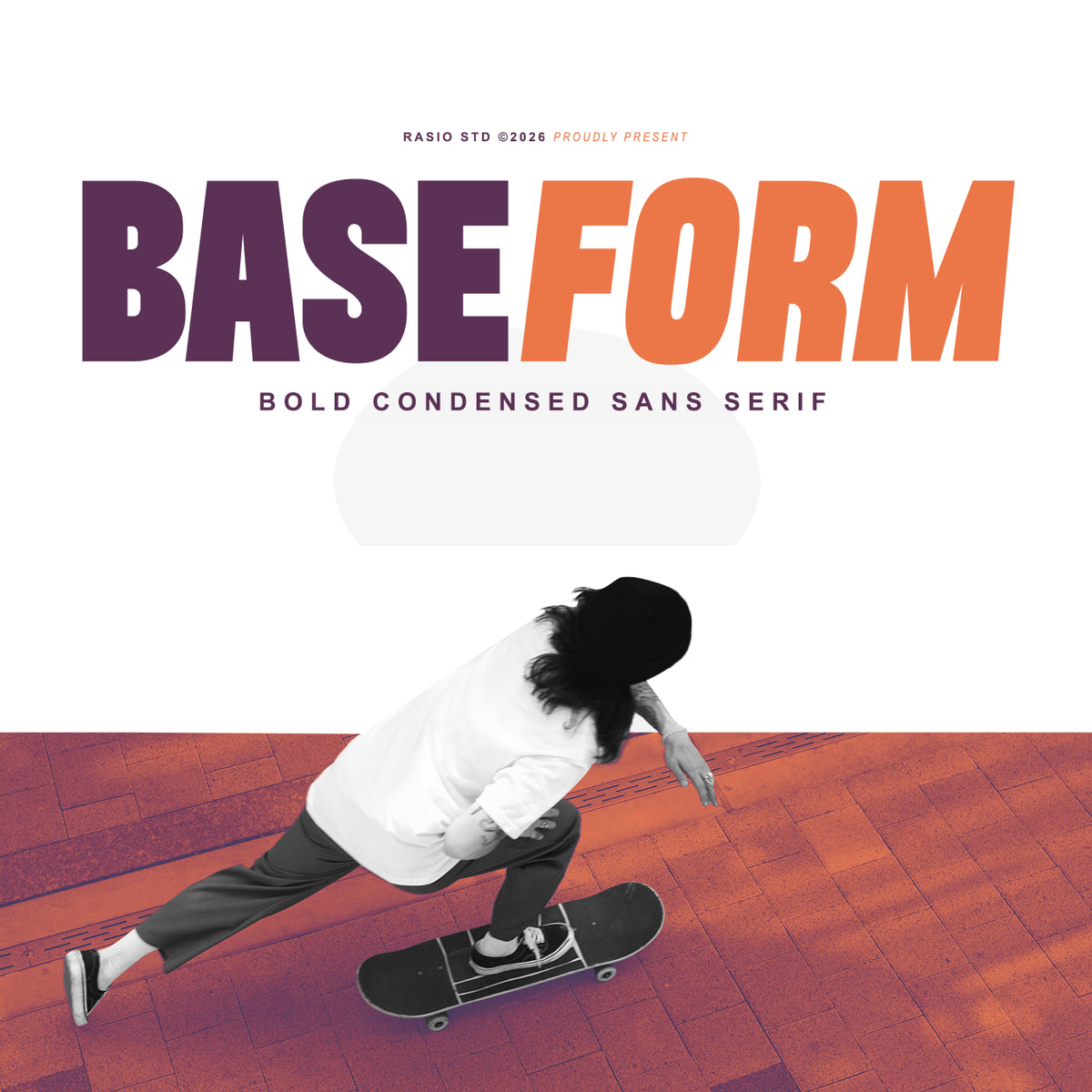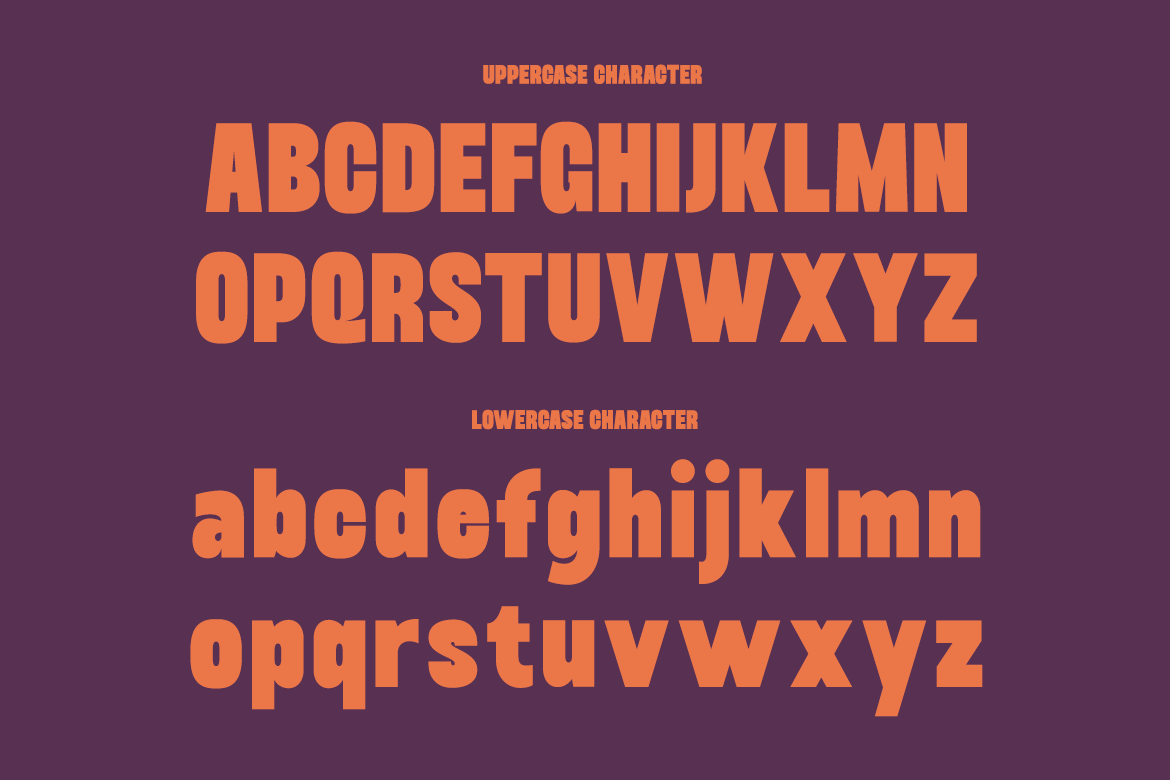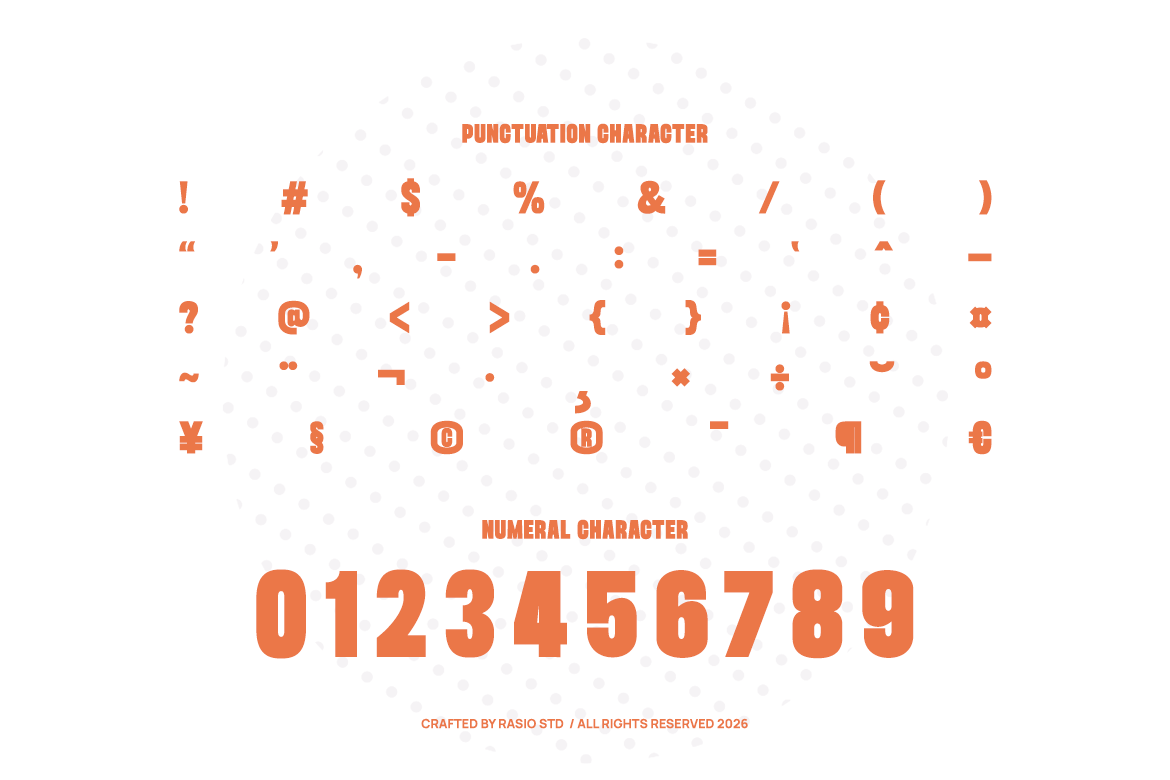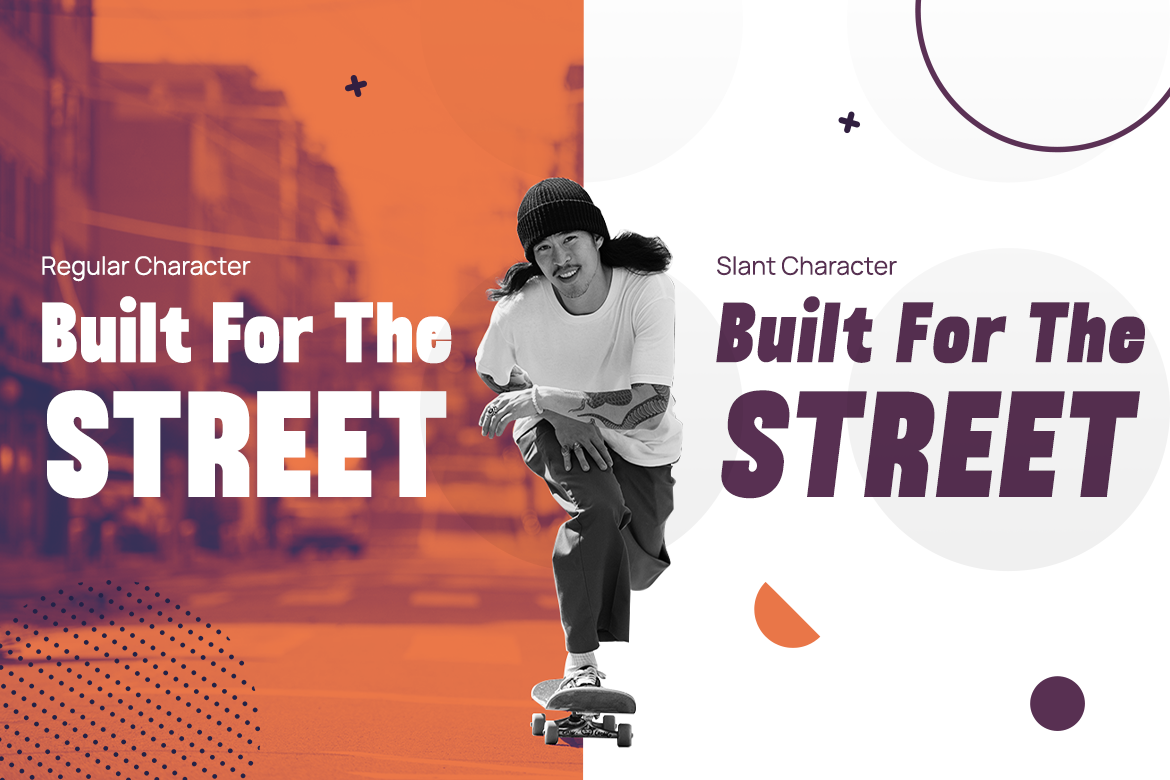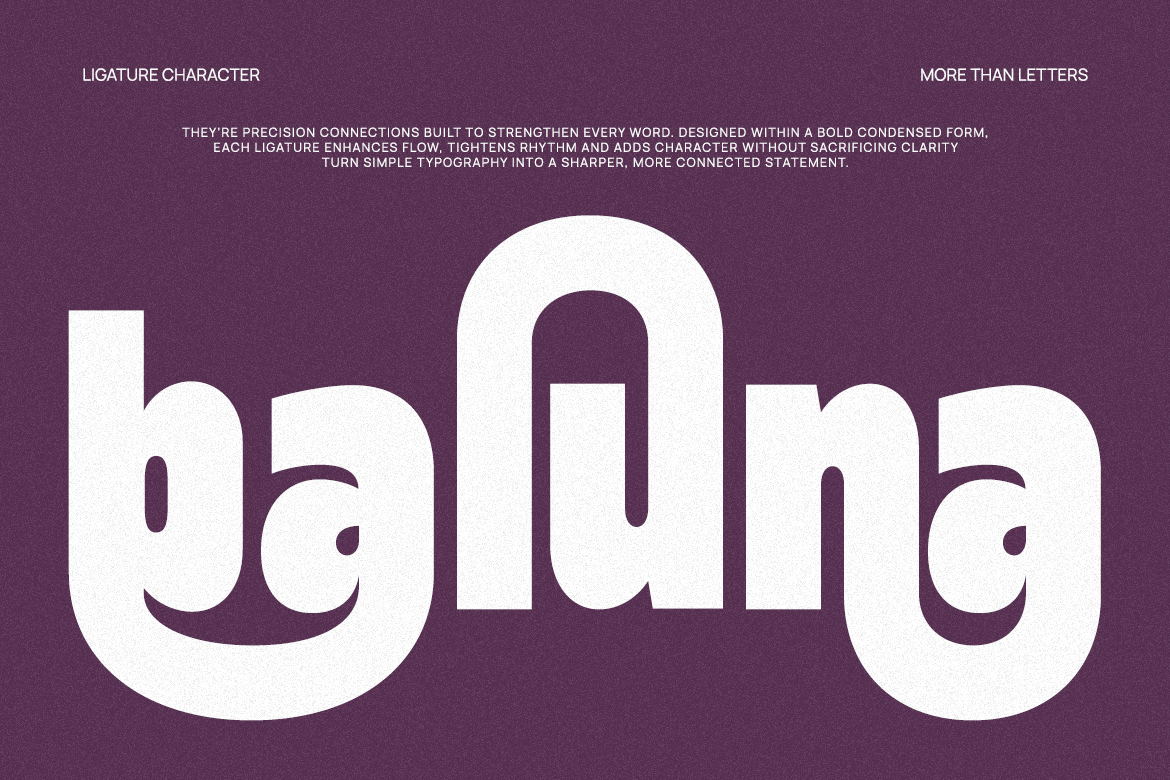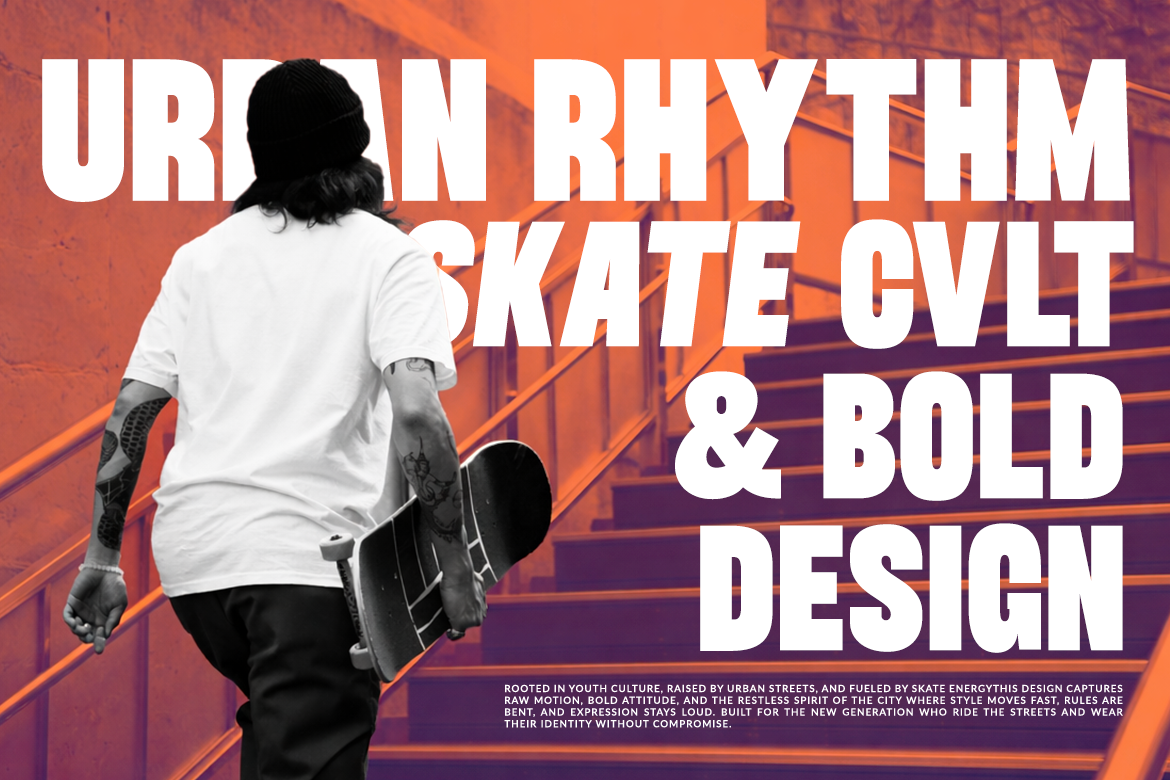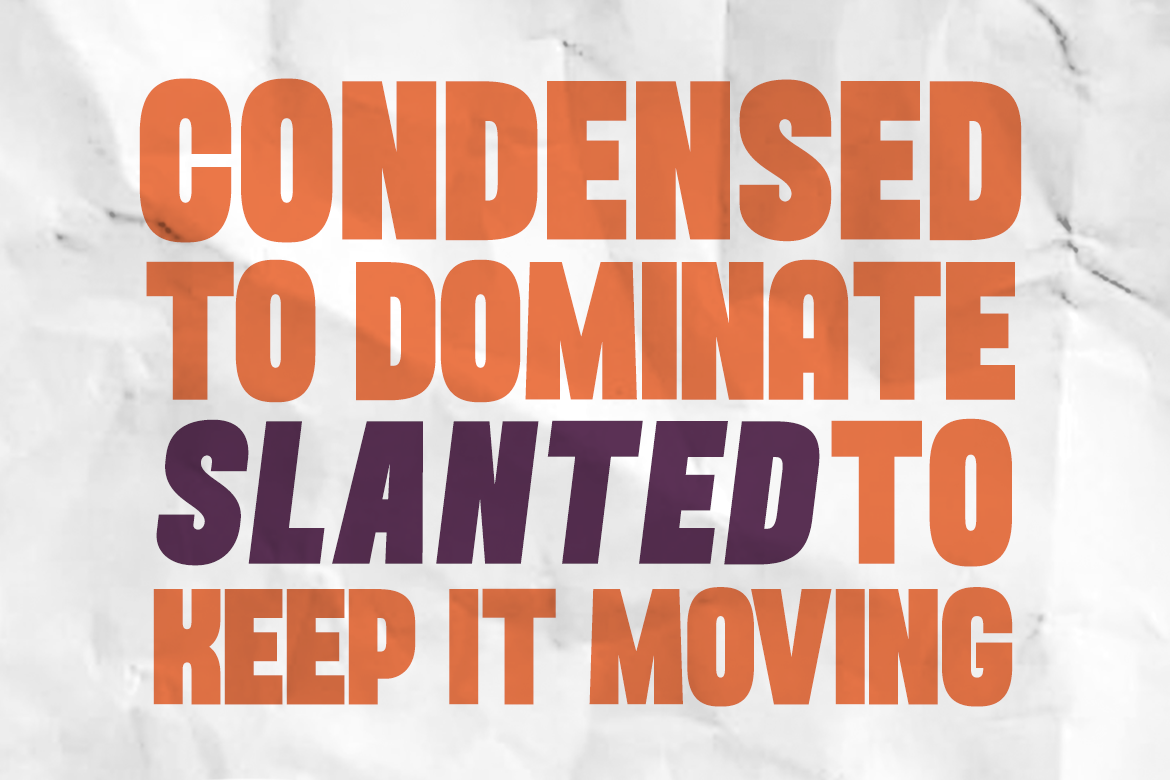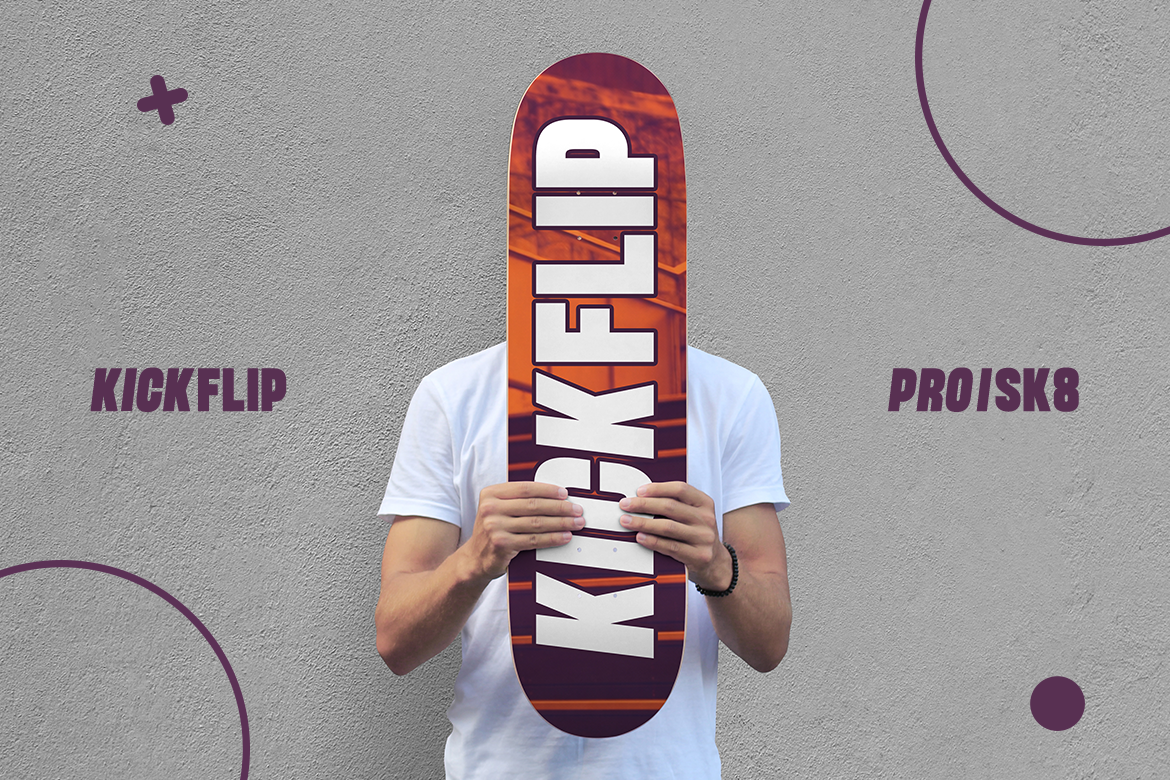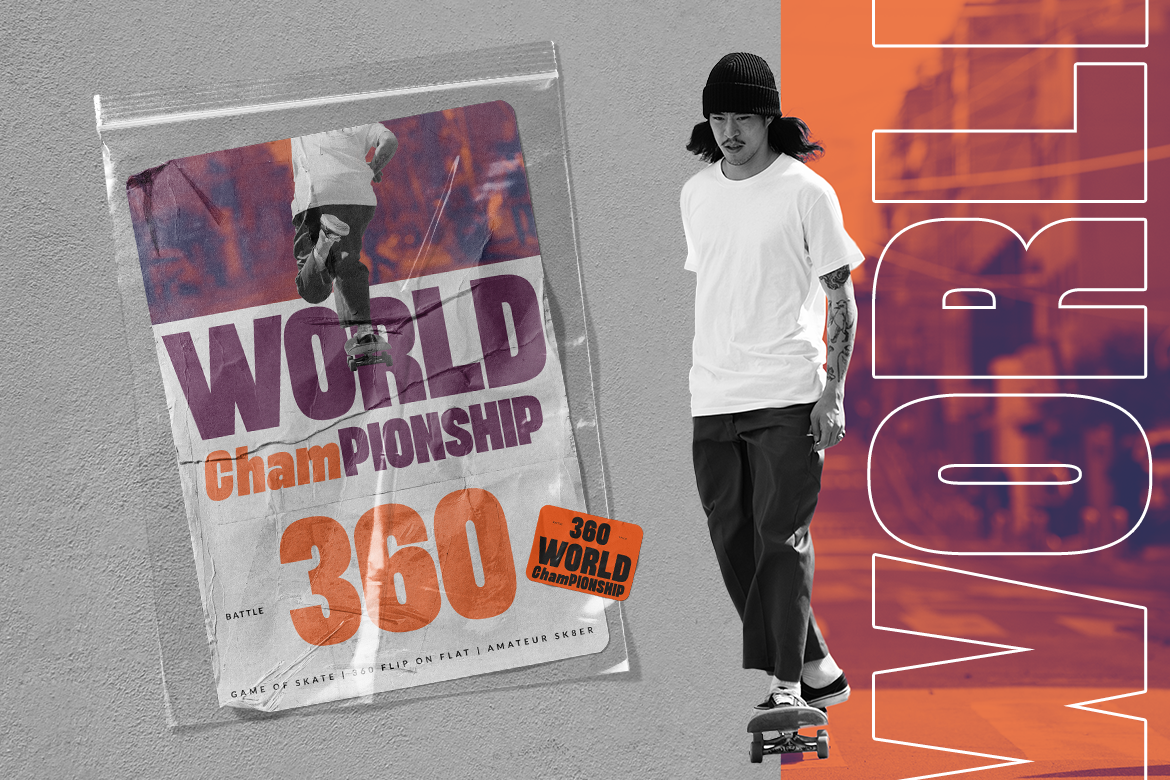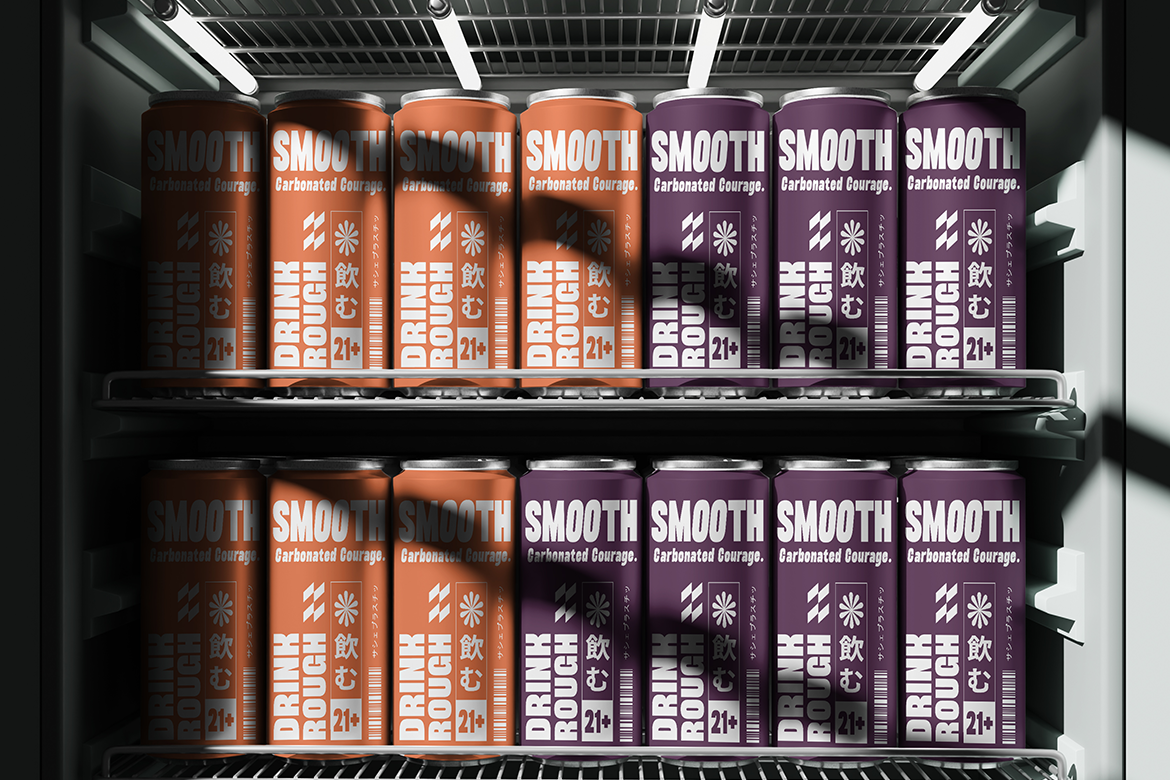
Baseform Bold Condensed Sans Serif Font
Baseform is a bold condensed sans serif display typeface built with strong vertical proportions, compact letterforms, and confident geometric structure. The design features tight spacing, heavy strokes, and distinctive ligatures that create a solid, impactful rhythm across headlines and large typography. Includes uppercase, lowercase, numerals, punctuation, and ligature support
Relevance and Use Cases is perfect for bold branding systems, streetwear labels, sports graphics, posters, album covers, packaging design, modern editorials, advertising headlines, social media campaigns, and any layout that needs compact structure with strong visual presence.
• Ligatures Support
Baseform is a bold condensed sans serif display typeface featuring compact letterforms, heavy strokes, and ligature support. It includes uppercase and lowercase characters, numerals, and punctuation, available in OTF, TTF, and WOFF formats.